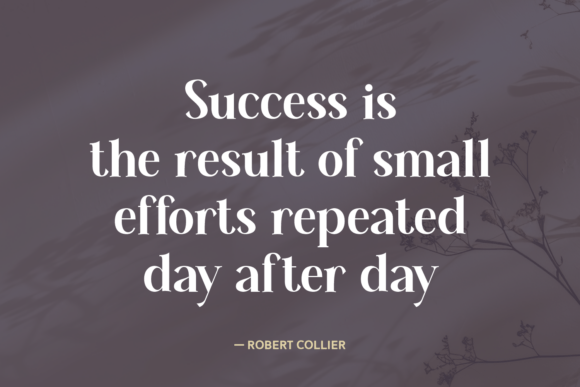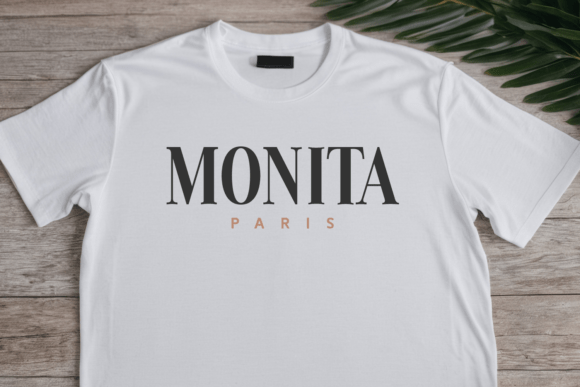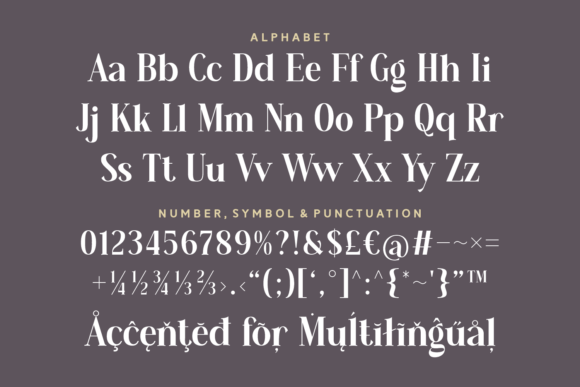
Introducing Change Mindset Font: A Modern Serif Font for the Inspired
In the world of typography, fonts are more than just a means of communication – they’re an expression of personality, style, and attitude. For designers, crafters, and anyone looking to make a statement, the right font can elevate a project from ordinary to extraordinary. That’s why we’re excited to introduce the Change Mindset Font, a modern serif font that embodies the spirit of inspiration and creativity.
The Power of Typography: Why Fonts Matter
Typography is an essential element of design, playing a crucial role in conveying messages, evoking emotions, and creating brand identities. A well-chosen font can make all the difference in how a message is received, influencing the way we perceive information and connect with the content. With the vast array of fonts available, selecting the right one can be overwhelming, but with Change Mindset Font, you’ll discover a versatile and elegant solution.
Meet Change Mindset Font: A Modern Serif Elegance
Change Mindset Font is a thoughtfully crafted modern serif font, designed to inspire and elevate your creative projects. Its sleek, refined lines and balanced proportions make it perfect for a wide range of applications, from digital media to print materials. The font’s name, Change Mindset, reflects its purpose: to encourage a fresh perspective, spark creativity, and foster a positive attitude.
Key Features of Change Mindset Font
- Modern Serif Design: Change Mindset Font boasts a contemporary serif design, characterized by clean lines, subtle curves, and a sophisticated feel.
- Elegant and Versatile: The font’s versatility makes it suitable for various projects, including headings, body text, and display text.
- Legible and Readable: With a focus on legibility and readability, Change Mindset Font ensures that your message is conveyed clearly and effectively.
- Multilingual Support: The font includes support for multiple languages, making it an excellent choice for global projects.
Design Inspiration: How to Use Change Mindset Font
Whether you’re a designer, crafter, or DIY enthusiast, Change Mindset Font offers endless possibilities for creative expression. Here are some design inspiration ideas to get you started:
- Branding and Logos: Use Change Mindset Font to create a professional and memorable brand identity.
- Digital Media: Enhance your website, social media, or blog with the font’s modern and elegant style.
- Print Materials: Add a touch of sophistication to your business cards, brochures, or posters.
- Crafting and DIY: Incorporate Change Mindset Font into your handmade projects, such as journals, planners, or crafts.
In conclusion, Change Mindset Font is a powerful tool for designers, crafters, and anyone seeking to make a statement. With its modern serif design, elegant style, and versatility, this font is poised to inspire creativity and foster a positive attitude. Download Change Mindset Font today and experience the transformative power of typography.